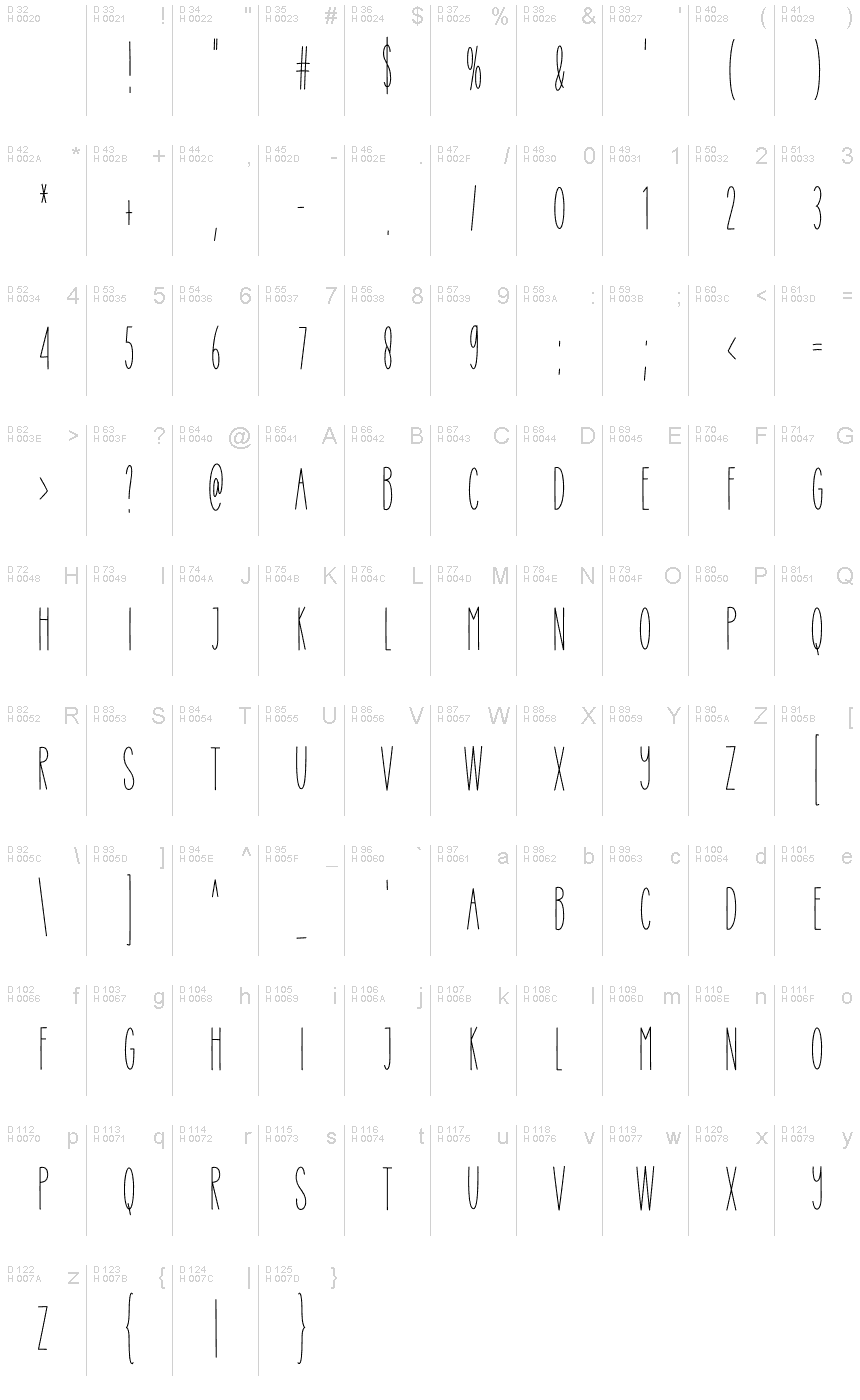
Paperwork
Paperwork, the extraordinary creation by Scratchones, is a captivating handwritten font that exudes elegance and charm. With its extra-light weight and extra-condensed width, this font offers a unique and striking appearance that will surely captivate your audience.
Its all-caps design adds a touch of sophistication, making it perfect for crafting stylish logos, branding materials, and stationery. The minimalist yet creative nature of Paperwork lends itself effortlessly to various projects such as blog headers, social media graphics, and fashion magazines.
Let this enchanting font elevate your designs to new heights of creativity!